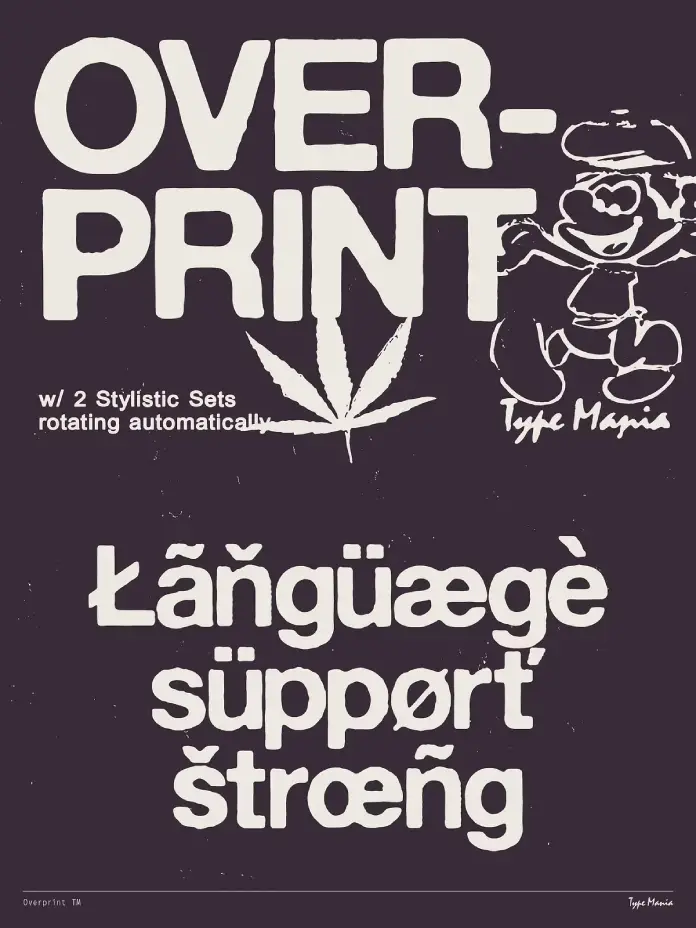
The Overprint TM Font Defines the New Standard for Distressed Sans Serif Typography
Designers today reject the sterile perfection of standard vectors. Overprint TM emerges as a definitive answer to this craving for digital texture. Created by Type Mania, this typeface does not merely simulate wear. It embodies the aesthetic of “aesthetic entropy.” This concept refers to the deliberate introduction of chaos into structured design systems. Overprint TM captures the raw, uneven edges of a degraded Xerox machine. Consequently, it brings an analog soul into a digital environment. Designers searching for a distressed sans-serif font will find Overprint TM creates an immediate visual impact. It forces the viewer to acknowledge the medium itself. Therefore, this typeface represents a shift toward “Tactile Digitalism.” We must analyze why this specific tool works so effectively.
What Makes Overprint TM the Ultimate Tool for Modern Anti-Design?
Why does one specific font outperform generic grunge filters? The secret lies in the Contextual Entropy Framework. This framework suggests that authentic distress requires variability, not repetition. A standard distressed font often looks fake because every letter ‘A’ possesses the same scratch. However, Overprint TM solves this problem through intelligent programming. Type Mania engineered the font with two distinct stylistic sets. Furthermore, these sets rotate automatically when you activate contextual alternates.
Consequently, the text displays subtle imperfections across words without obvious repetition. The eye perceives this as natural decay rather than a digital stamp. This feature sets Overprint TM apart from static competitors. Therefore, using this font provides a competitive edge in brutalist branding projects. Designers achieve a “xeroxed finish” that feels genuinely sourced from a broken printer.
Overprint TM – Distressed Sans Serif Typeface by Type Mania
The Mechanics of Algorithmic Imperfection
We define the success of the Overprint TM font through its commitment to “Algorithmic Imperfection.” This thesis states that code should mimic the unpredictability of physical tools. The font includes OpenType features that handle this heavy lifting. Specifically, the engine cycles between the two stylistic sets. Thus, the typography behaves like a living texture.
Designers rarely find such robust features in affordable display fonts. This automatic rotation ensures that headlines maintain a dynamic rhythm. Moreover, the uneven edges break the grid in a pleasing way. We see this technique frequently in contemporary streetwear branding and zine culture. Overprint TM facilitates this look instantly. You do not need to apply complex noise maps in Photoshop. The font delivers the texture directly through the keystroke.
Expanding the Toolkit: The Overprint Outline TM Companion
A complete design system requires versatility. Therefore, Type Mania also offers Overprint Outline TM. This companion cut provides the same distressed architecture but in a hollowed form. Significantly, it allows for layering and complex compositing. Smart designers often stack the regular cut over the outline for a vibrating, misregistered effect.
This web font capability is essential. Designers can now bring “Tactile Digitalism” to websites without using heavy images. The text remains live and searchable. Furthermore, the language support is extensive. It covers Basic Latin, Western European, Euro, Central European, and Pan-African Latin. The Overprint TM font ensures your message travels globally without losing its unique character.
A Critical Perspective on Digital Erosion
We must ask ourselves why we value damaged type. My theory is “The Saturation of Perfection.” Consumers see too many clean lines. Therefore, the eye glazes over high-resolution perfection. Overprint TM disrupts this visual fatigue. It acts as a visual speed bump. The reader slows down to process the texture.
This engagement makes the font highly effective for headlines and poster art. It creates friction. In marketing, friction often leads to higher retention. Overprint TM is not just a style choice; it is a strategic tool for attention. It signals authenticity and raw energy. Consequently, brands looking to appeal to Gen Z often deploy this aesthetic. They use it to signal that they are not “corporate” or “sanitized.”
What is the difference between Overprint TM and Overprint Outline TM?
Overprint TM is the solid, regular cut of the typeface. Conversely, the Outline version features only the stroke of the letters. Both share the same distressed texture and combine well.